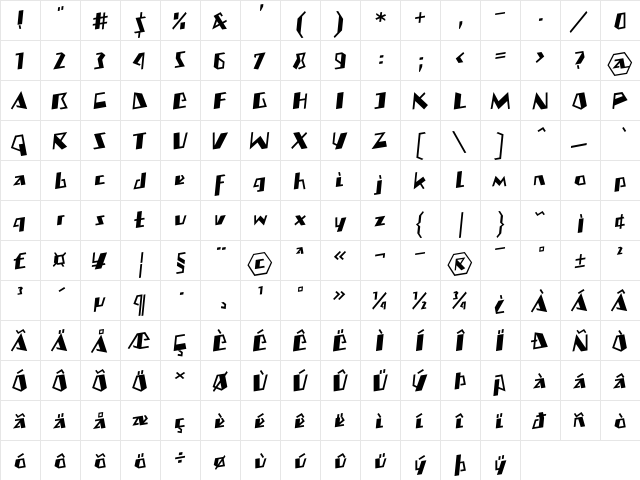
MateoBoldLL Medium Font Preview
MateoBoldLL Medium
MateoBoldLL Medium Font Details
Design Context for MateoBoldLL Typeface
MateoBoldLL is a composed and adaptable typeface that performs quietly and consistently across a wide range of design contexts. Its bold stroke weight gives it real presence on the page.